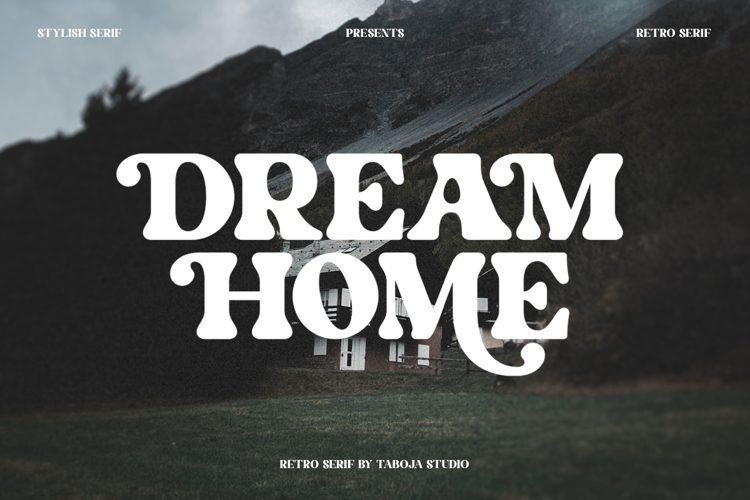
Dream Home Font
Dream Home is a retro display serif font that exudes a classic charm and bold character. With its design inspired by retro styles, this font brings an elegant touch and evokes a sense of the past. Each letter is meticulously crafted with careful attention to detail and proportion, resulting in a visually appealing and unique appearance.
Dream Home is perfect for projects that require a vintage feel, such as posters, logos, packaging, and promotional materials that aim to capture a nostalgic and sophisticated atmosphere. This font will add a special touch to your designs and captivate viewers with its retro allure and distinctiveness.
Font Features:
* Regular
* Uppercase And Lowercase